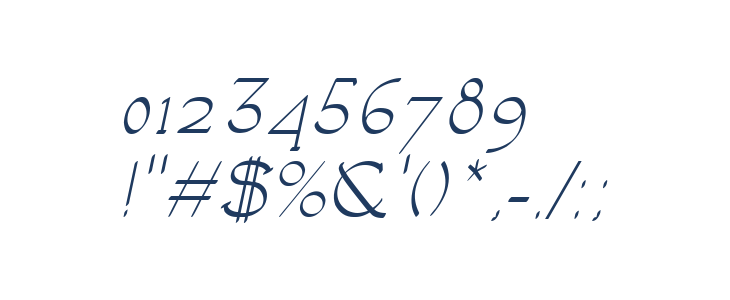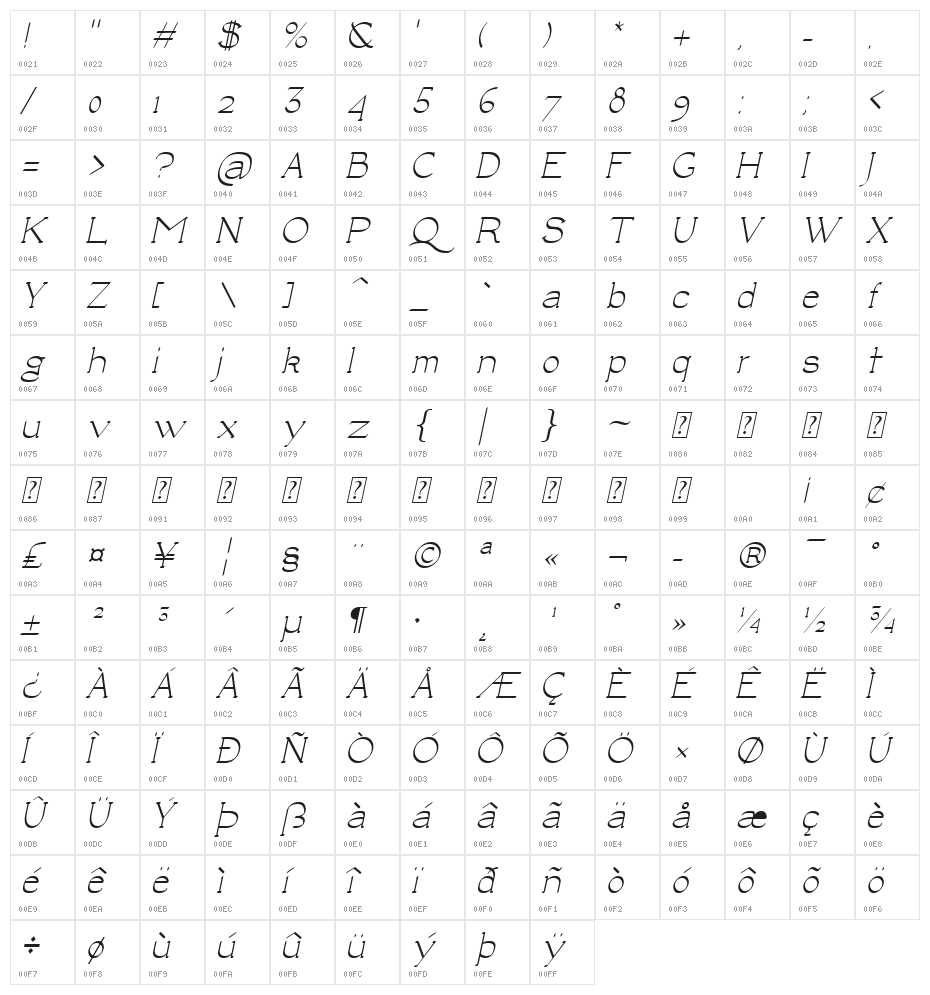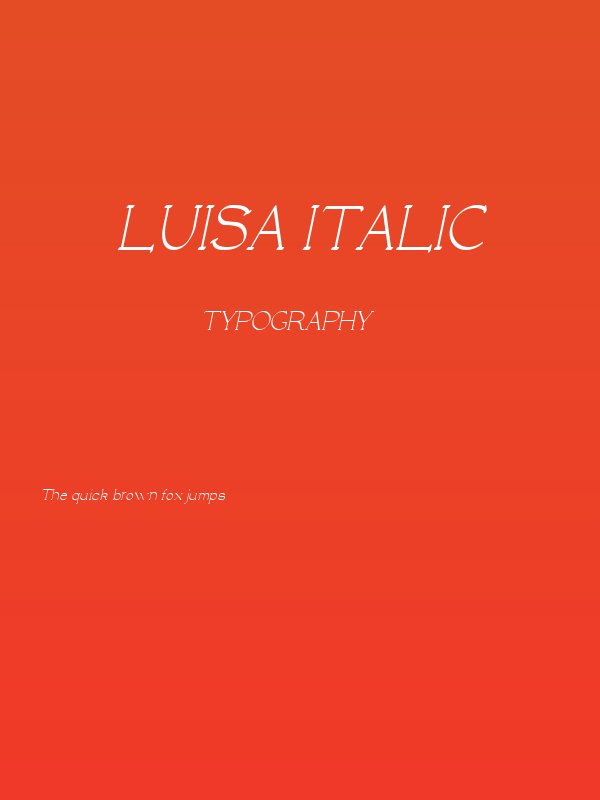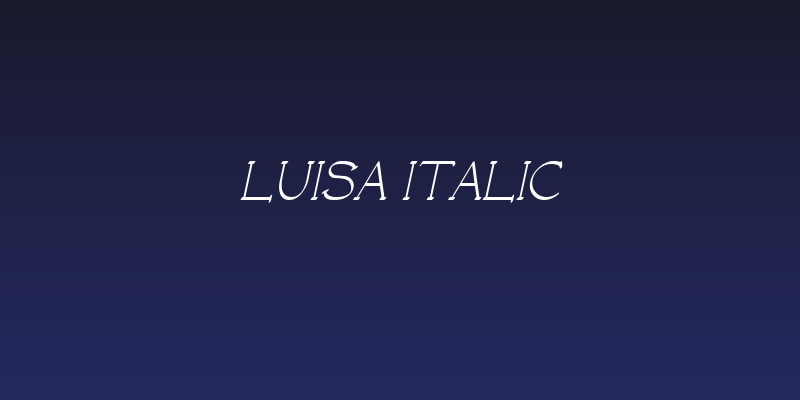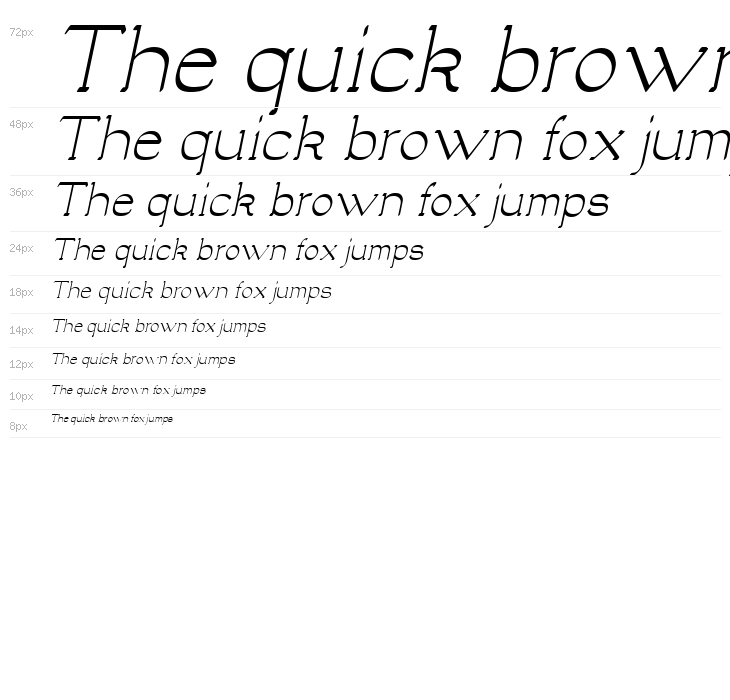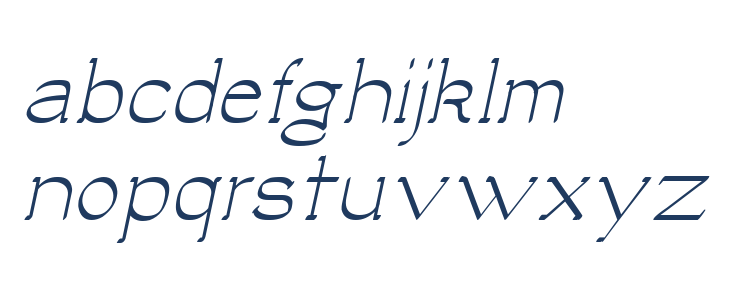
Luisa Italic Font
Luisa Italic Description
This elegant and sophisticated font features a distinct italic style with a graceful slant, giving it a dynamic and fluid appearance. The characters are crafted with a fine balance between thin and thick strokes, providing a medium contrast that enhances readability while maintaining an artistic flair. The uppercase letters exhibit a refined structure with subtle curves, while the lowercase letters are more rounded and flowing, adding to the font's overall charm. The numerals are well-proportioned, and the special characters are designed with a consistent style that complements the alphabet. This font's unique blend of classic and modern elements makes it versatile for various design applications.
| Use Case | Headlines, Invitations, Branding |
| Proposed Projects | Ideal for wedding invitations, luxury branding, editorial design, and elegant packaging. |